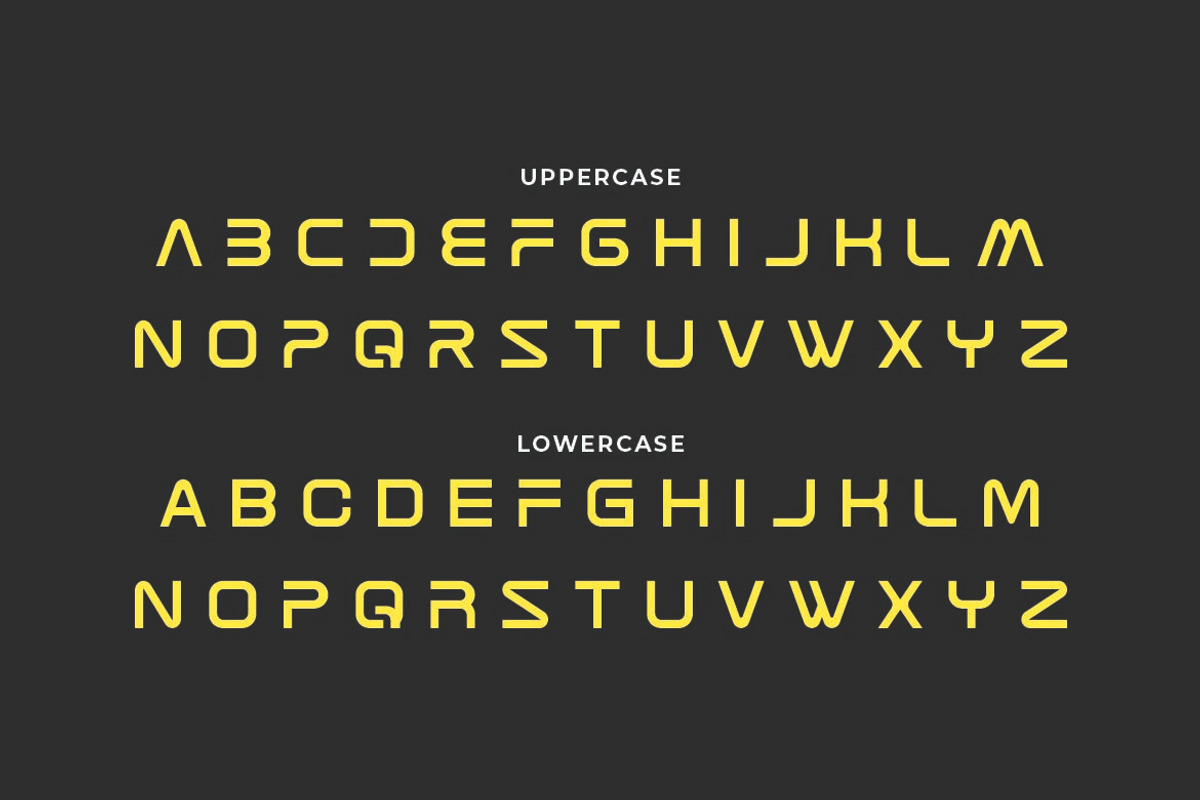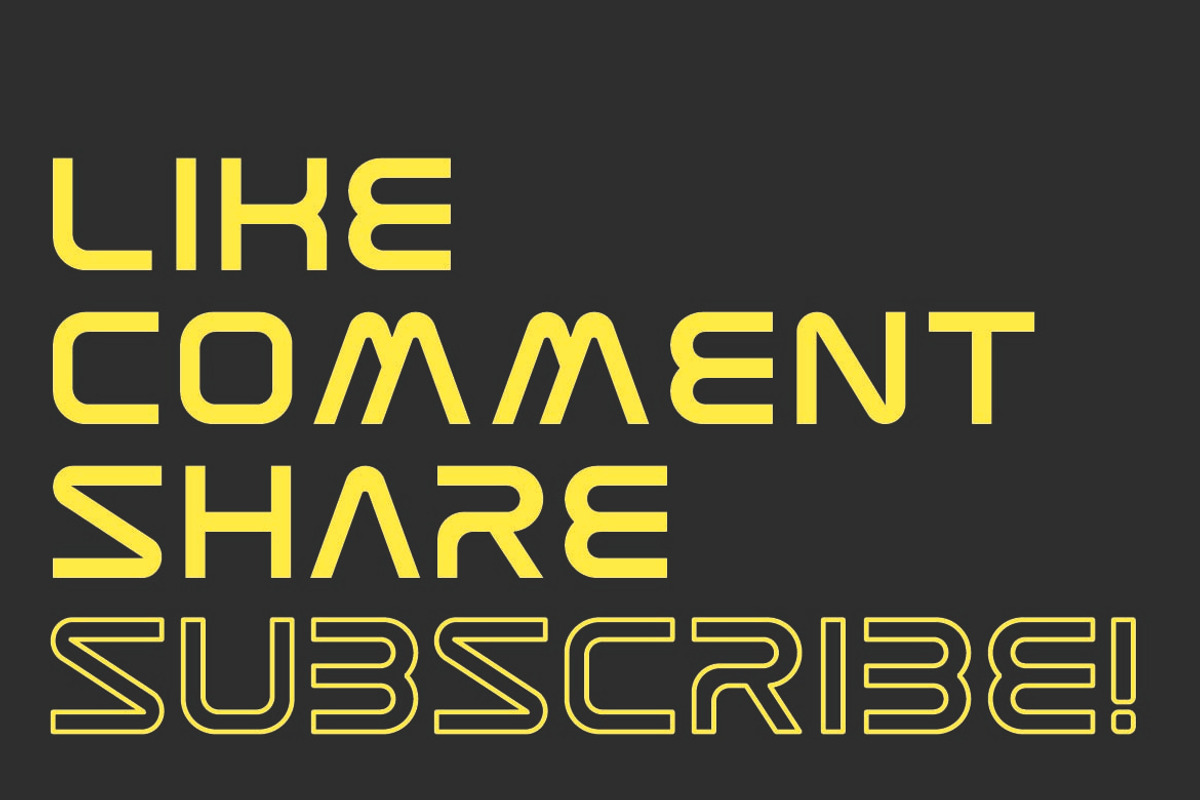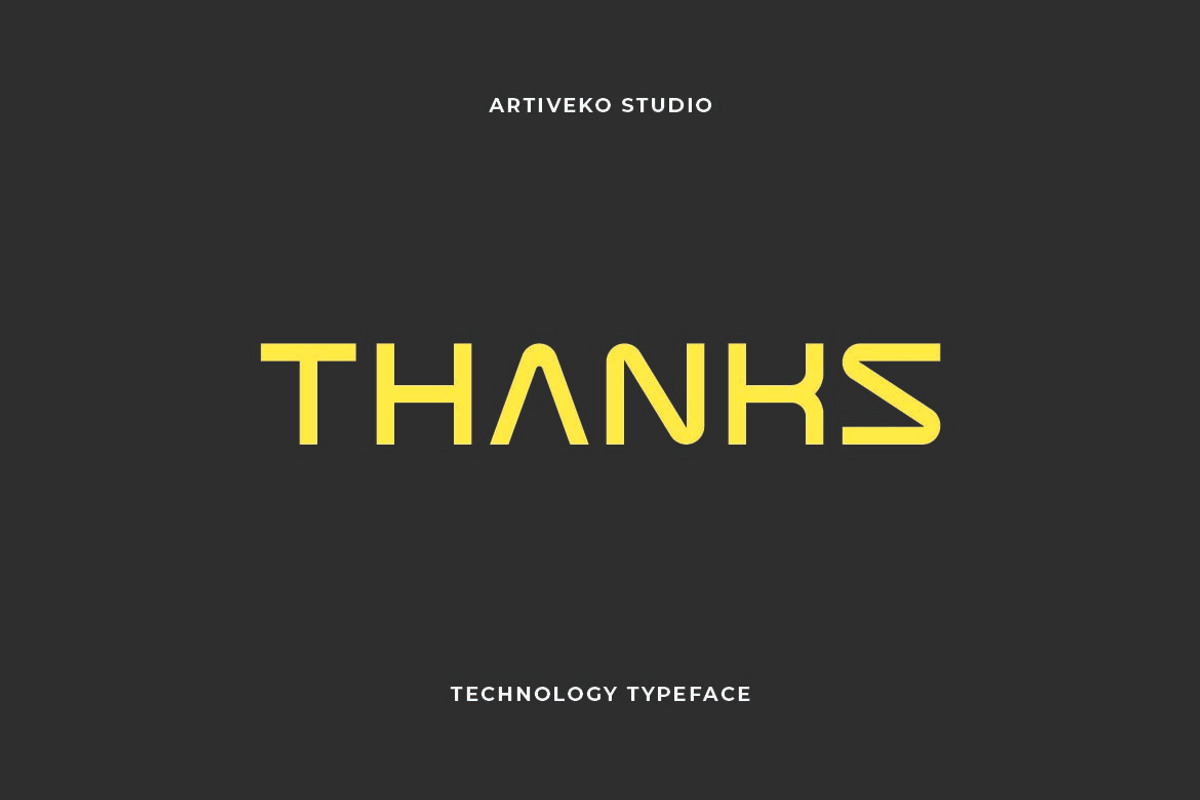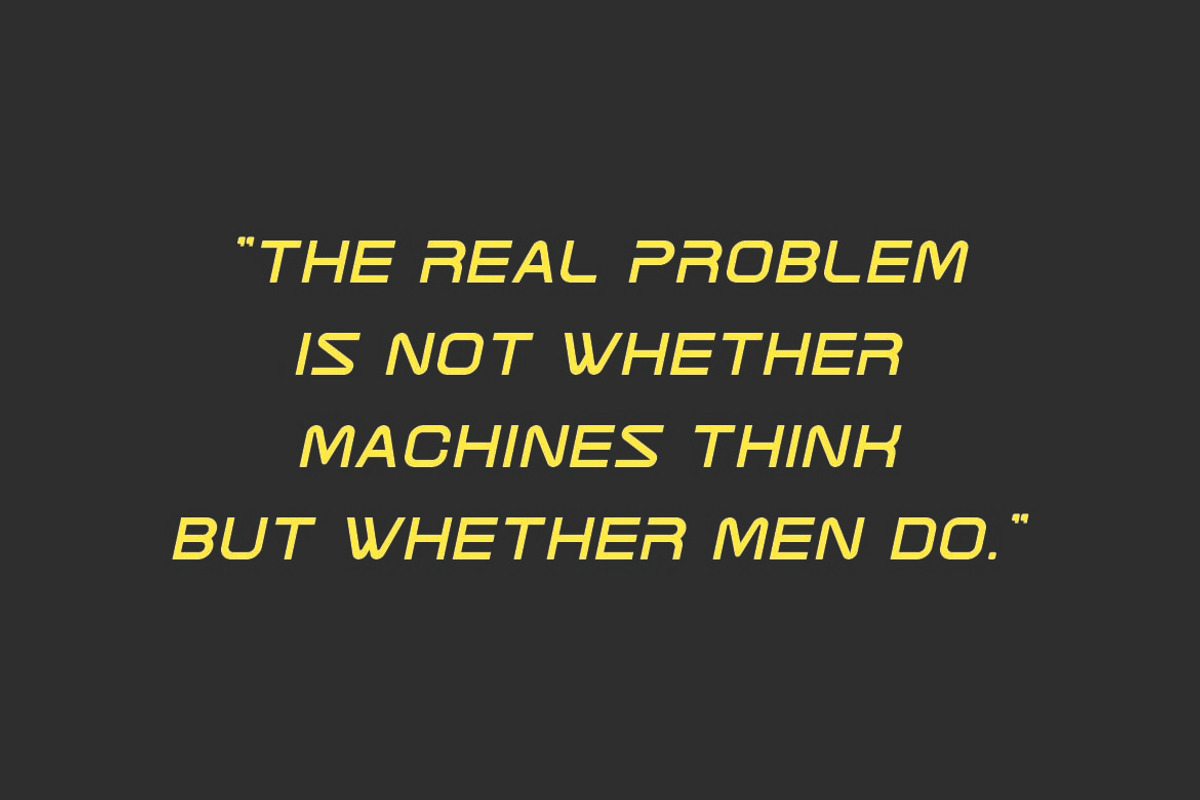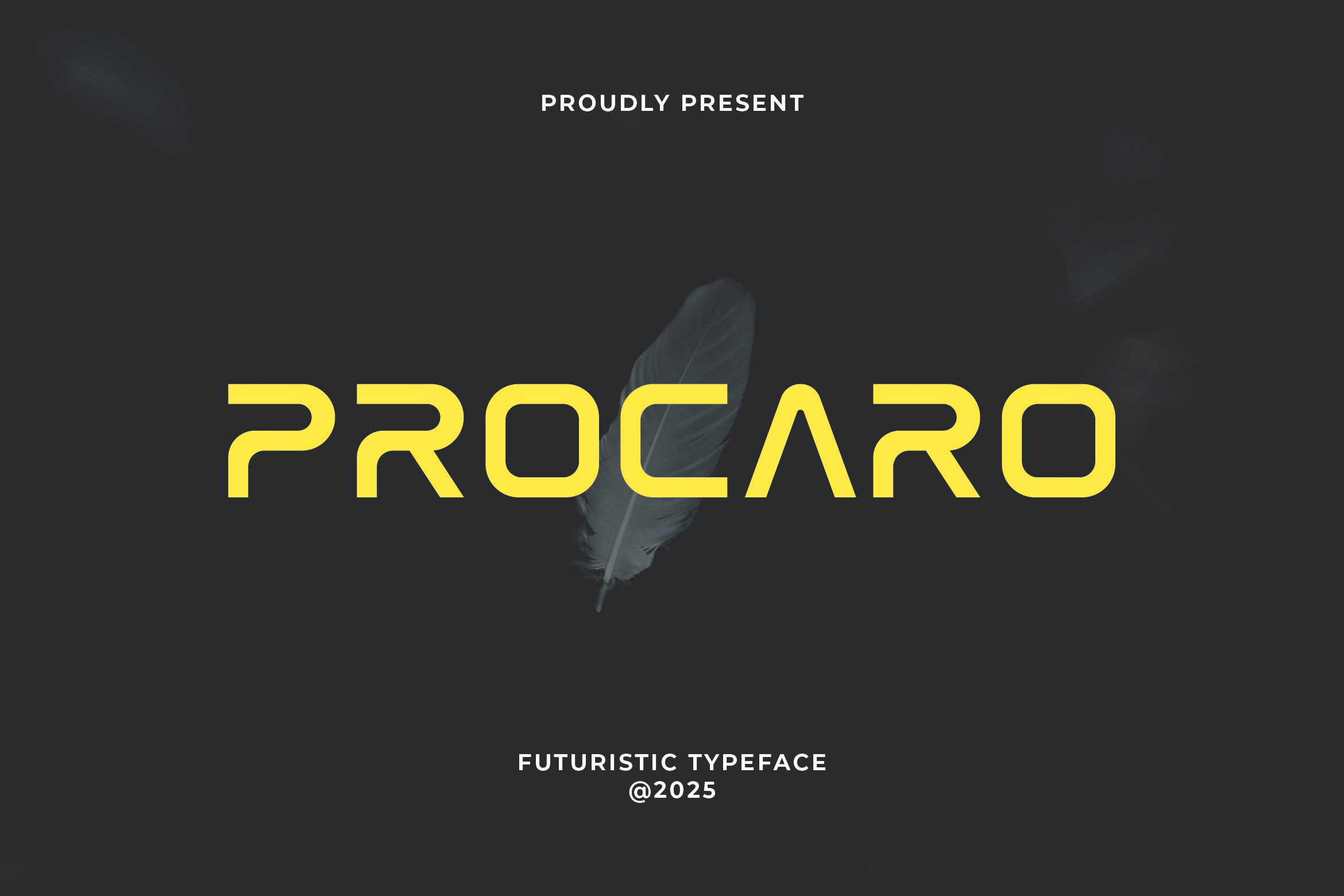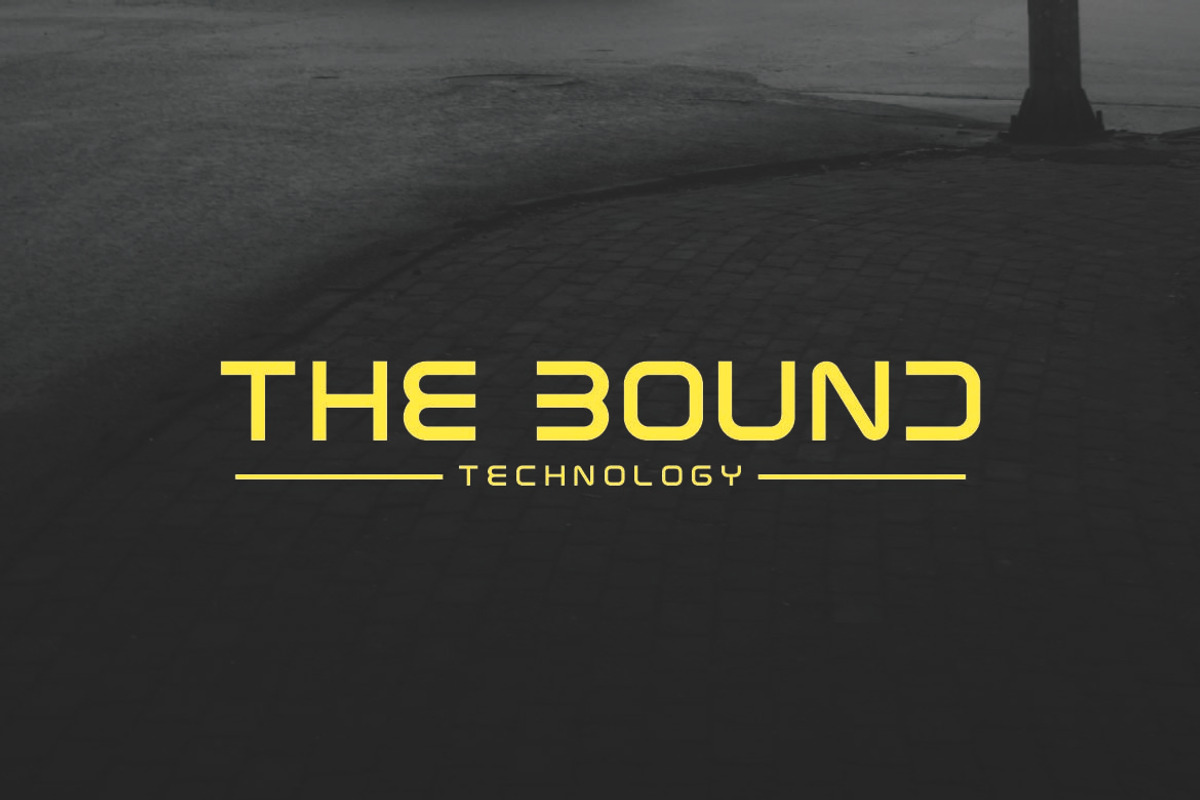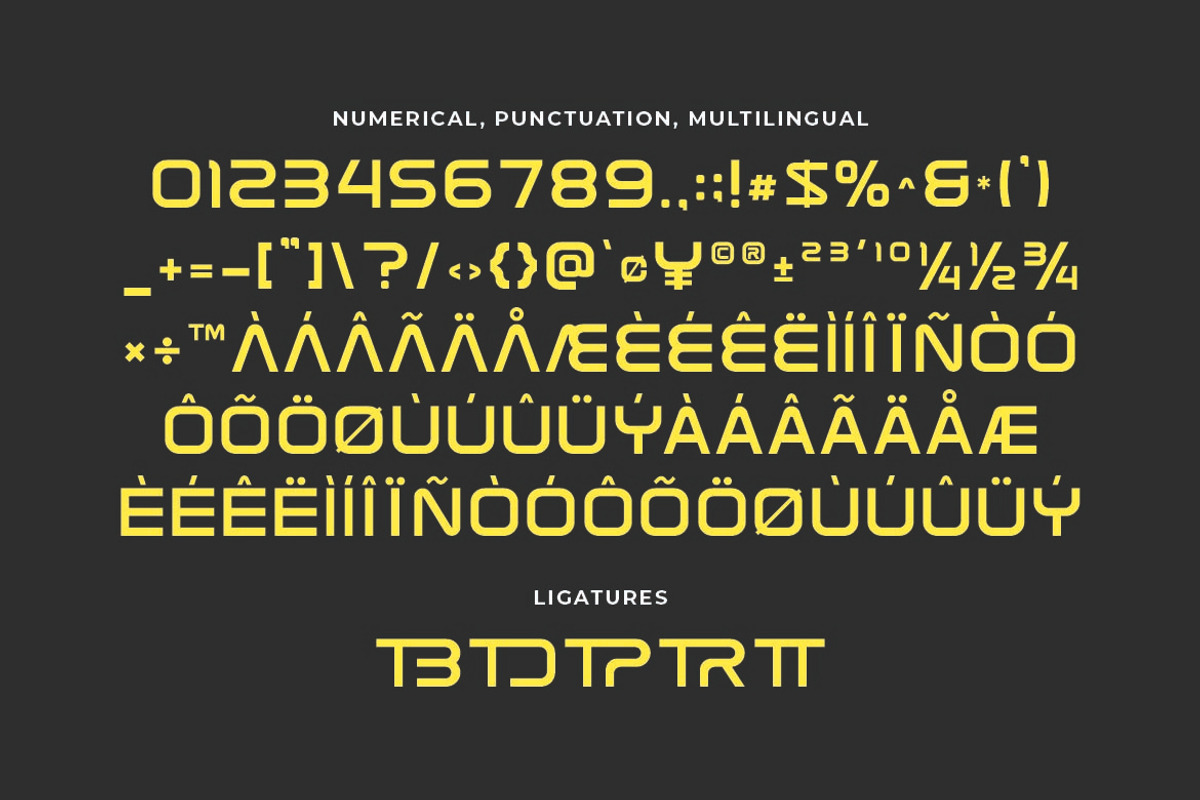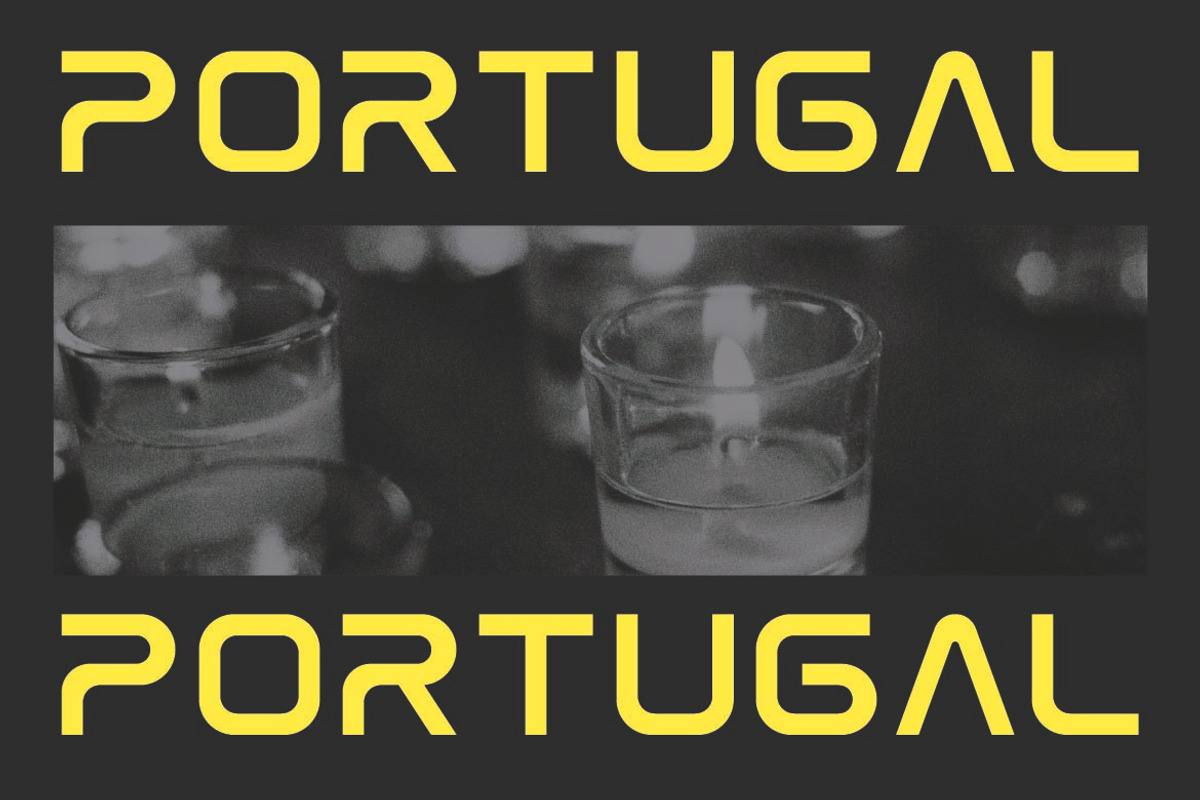
Procaro Modern Tech Font
Procaro is a bold geometric tech font crafted for designers who seek precision, symmetry, and a futuristic aesthetic. With its clean construction and sharp edges, Procaro combines modern digital vibes with timeless geometric balance — ideal for technology branding, UI design, esports logos, posters, and sci-fi titles.